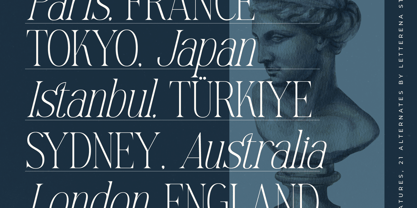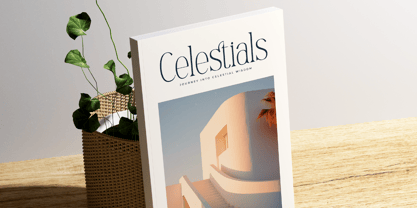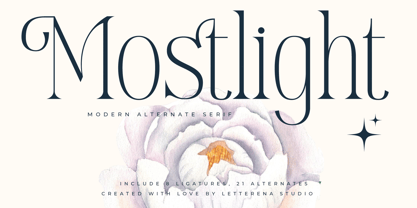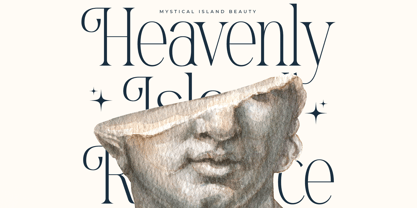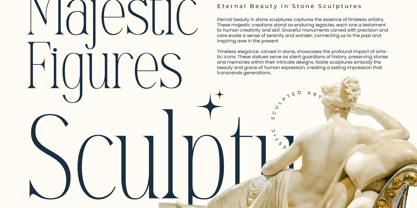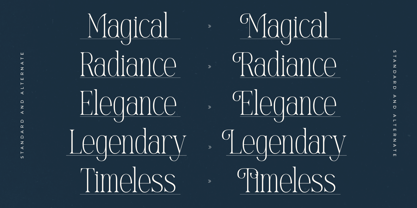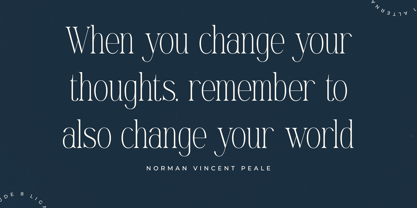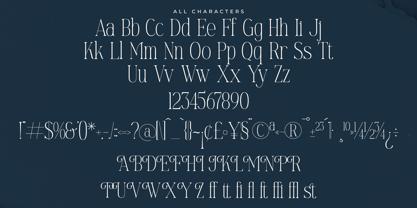
Mostlight
The Mostlight Font Family was designed by Heru Utama Putra and published by Letterena Studios. Mostlight contains 2 styles and family package options.
Mostlight – Modern Alternate Serif , from Letterena, is a Luxury Serif font, suitable for any projects such as: logos, branding projects, homeware designs, product packaging, mugs, quotes, posters, shopping bags, t-shirts, book covers, name card, invitation cards, greeting cards, label, photography, watermark, special events, and all your other luxury and beautiful projects that need a Luxury Serif taste.